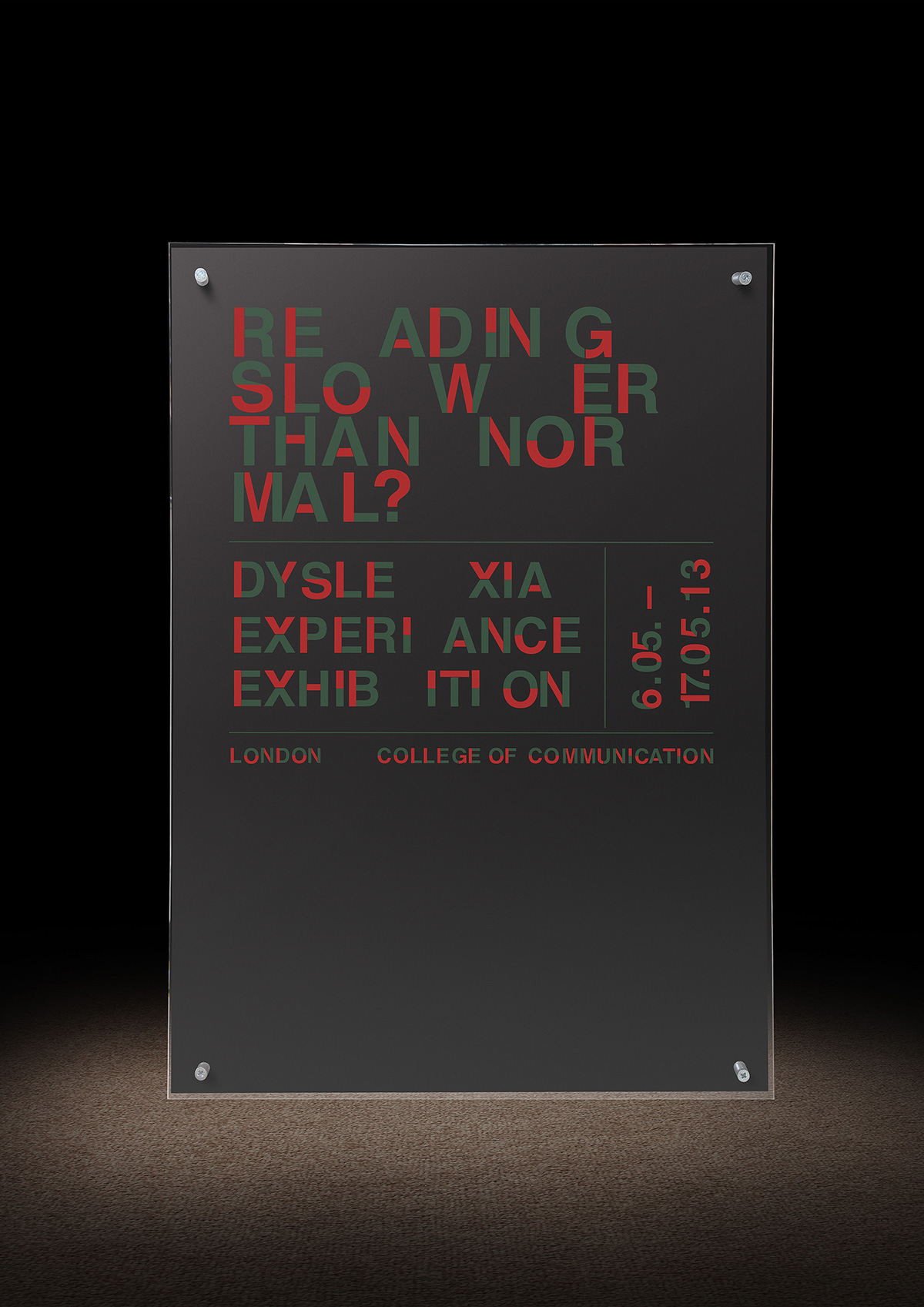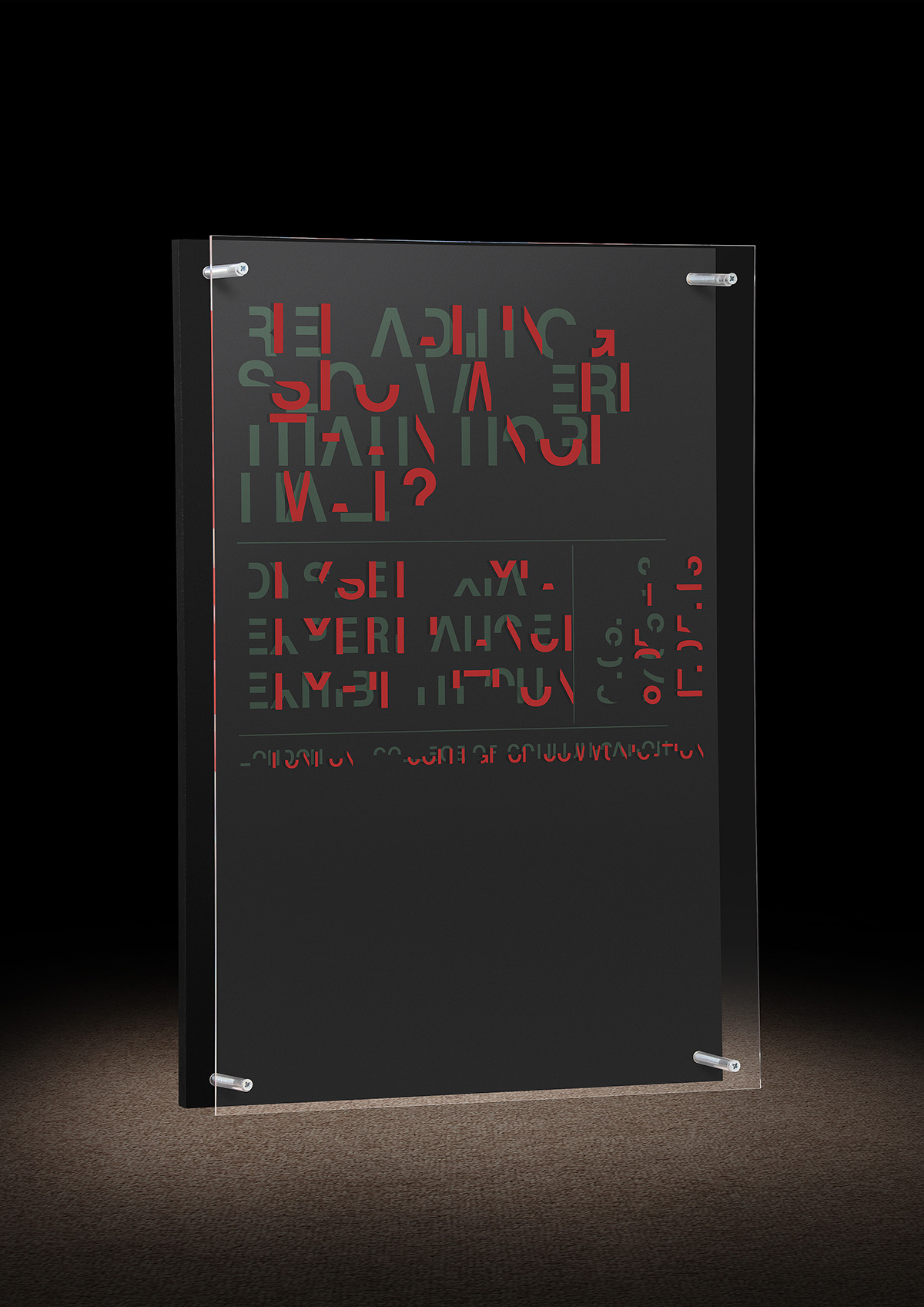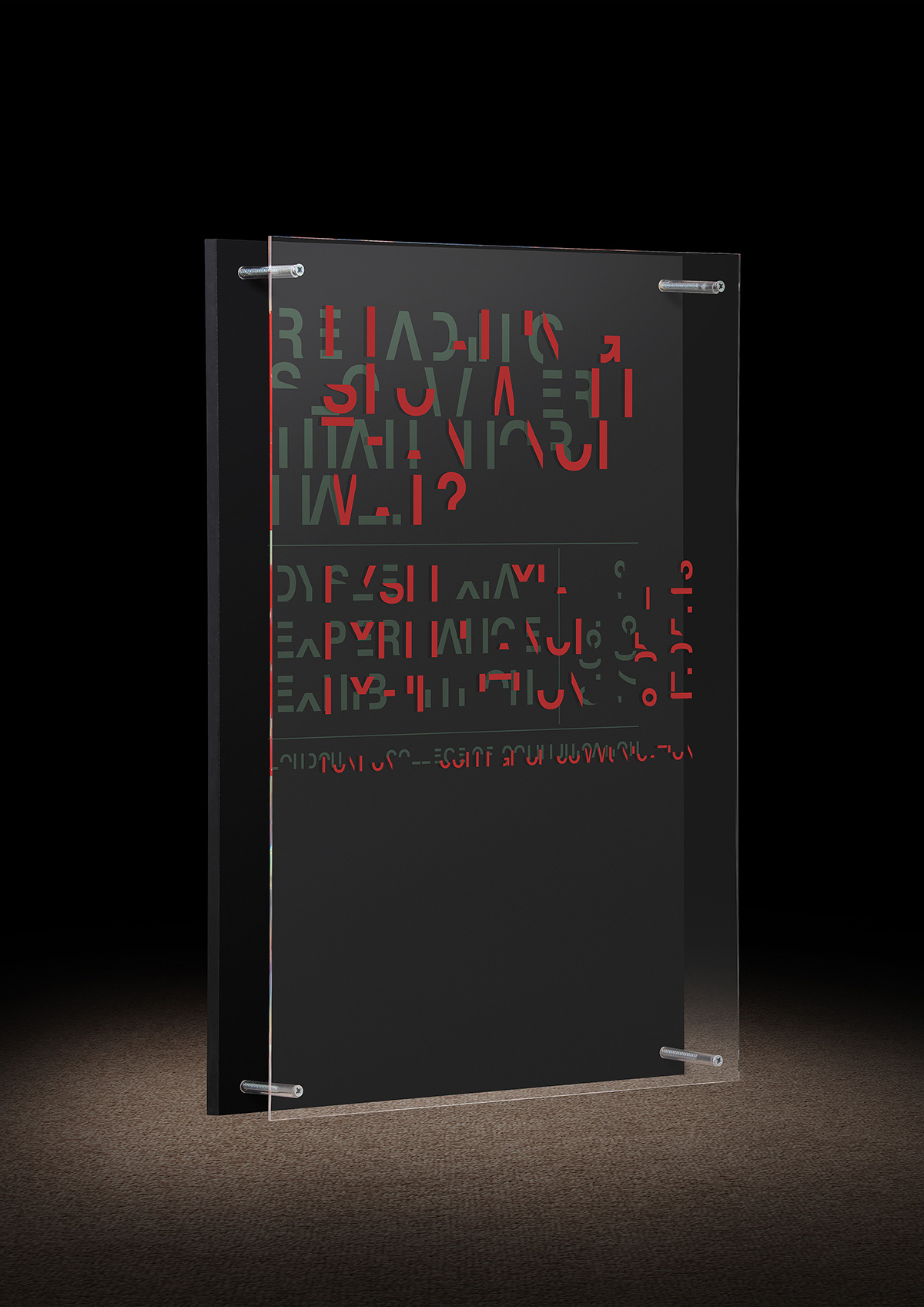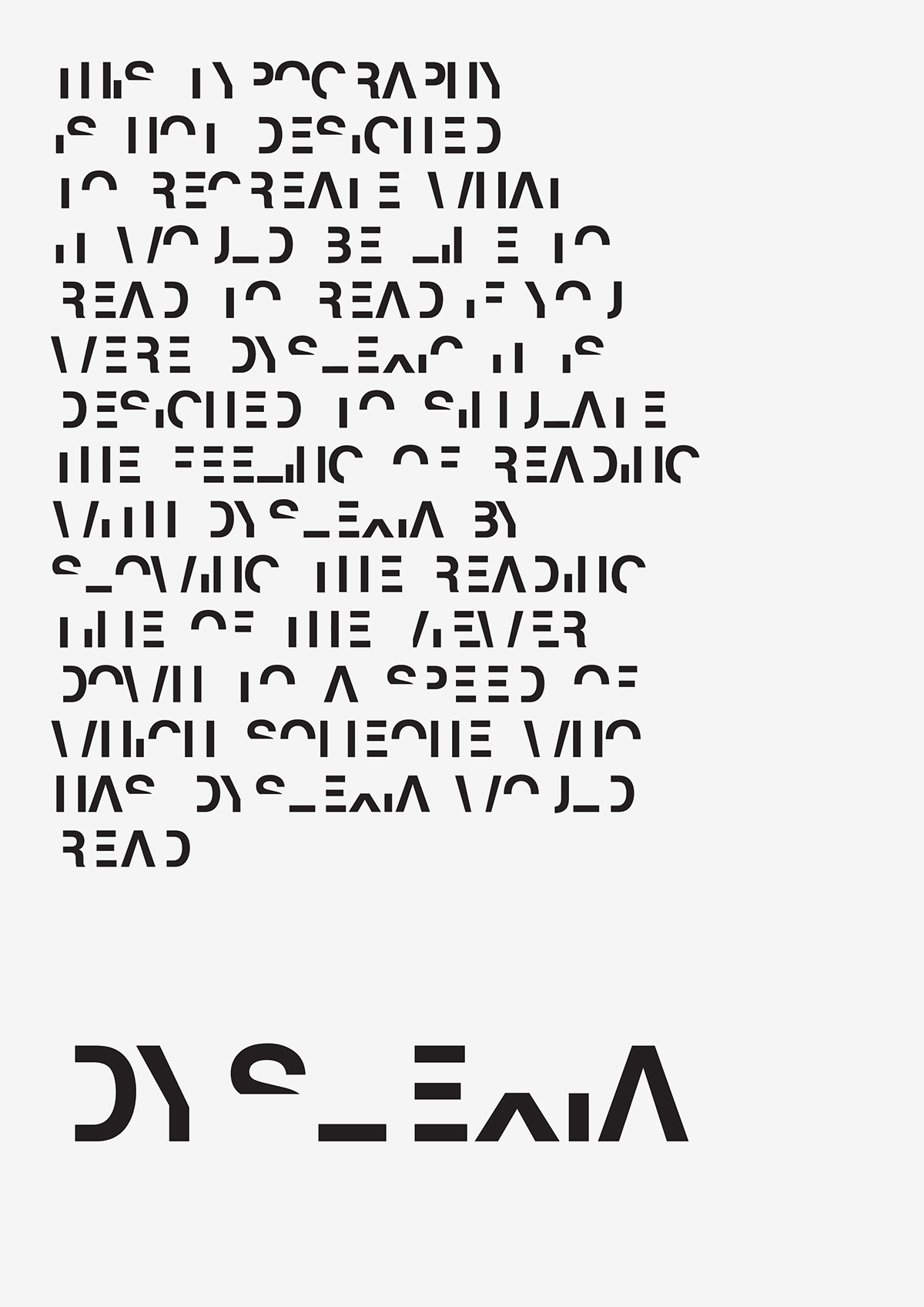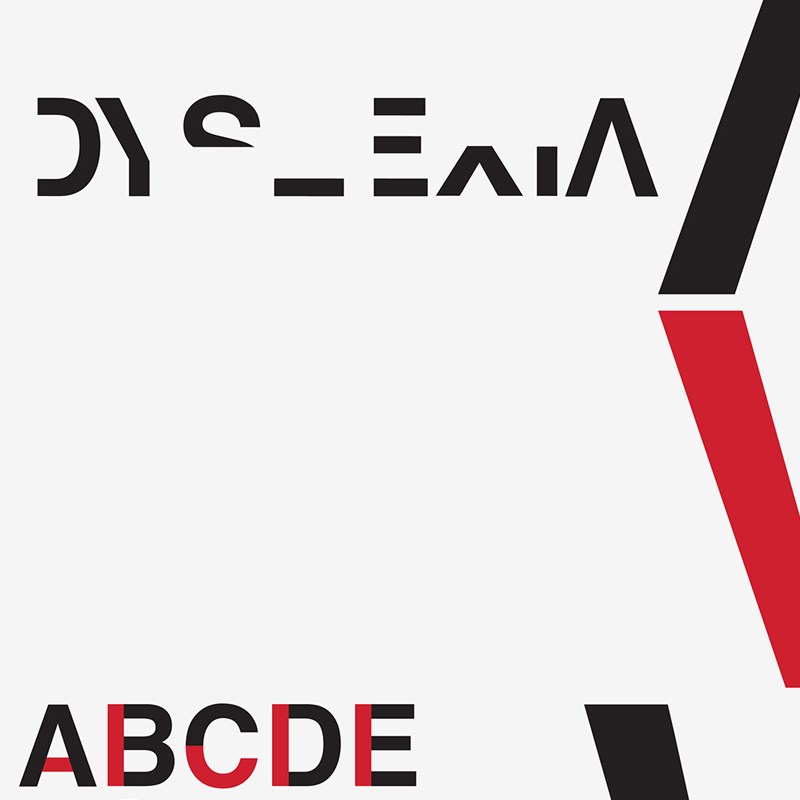
Daniel Britton’s font will make you feel what dyslexia is all about
It took Daniel Britton 22 years to finish reading a book. “People who’ve never been dyslexic don’t understand what it’s like.” he says to CNN. He was diagnosed as a partial-dyslexic at a very young age “But no one understood it” he told Daily Mail. “I remember when I was eight-years-old, all I got was try harder, read harder, you’re lazy, you’re stupid, you’re thick”. Books were hard to finish, graphic design though was his craft. Therefore he used it for a purpose, to inform and advocate more empathy on the most prevalent of language-based learning disabilities. Dyslexia affects 1 in 5 students yet it remains a widely misunderstood disorder.
Daniel Briton decided to act. Being a successful graphic designer, he found a brilliant way to convey those feelings of frustration be creating his own font, dubbed Dyslexia. “This typography is not designed to recreate what it would be like to read if you were dyslexic it is designed to simulate the feeling of reading with dyslexia by slowing the reading time of the viewer down to a speed of which someone who has dyslexia would read.”
Using Helvetica as a base, the Dyslexia font removes around 40 per of the typeface’s lines as it aims to make the average reader take their time when attempting to decipher the letters in the words and sentences. A font designed to slow down reading to the speed of someone with dyslexia reading normal font.
“I need the viewer to have to work to read something so simple as a poster”
“I wanted to create a piece on Dyslexia as Dyslexia is for the most part greatly misunderstood and extremely miss communicated, even the government agencies that aim to create awareness at best create confusion and being a Dyslexic student I wanted to create a piece of artwork that would allow a understanding and a sense of empathy between non Dyslexics to Dyslexics” writes Britton.
“I believe that once that Dyslexia is understood then as a nation we can create better learning conditions for Dyslexic students and let them excel in the same way that every other person can. Just think, there are around 8 Billion people living in the world right now with around 10% of the population being Dyslexic, so that gives you around 800,000,000 Dyslexic people on the planet, if we can increase our understanding and give the correct help to these people just think how many more Richard Bransons, Elon Musks or Boyan Slats we can produce.
For most people the letters and numbers do not jump around on the page and the colors remain the same, it is simply a break down in communication between they eye and the brain, for most people you can see the information, you can see perfectly each and every letter form but there is something in your mind that is stopping or slowing the process of information and for most this is Dyslexia”.
Britton used typography to make non-Dyslexic people understand what it is like to read with the condition and to recreate the frustration and embarrassment of reading everyday text and then in turn to create a better understanding of the condition.
“In 2D the type is split into 2 and only one section of the type if revealed, just enough for you to eventually piece it together. In its 3D form both sections of the type are there, one placed directly on top of the other which is perfectly legible from front on, but the moment you move to either side or you view the poster from above or below the type breaks to which you have to physically move yourself to read the text, it is exactly this that I wanted to get across, I need the viewer to have to work to read something so simple as a poster and it is this feeling of work, aggravation, effort, stress, embarrassment that recreates the feeling of reading with the condition” he writes.
This is a story about empathy, this is a true story about feeling, this is typography bridging the gaps between humans, making as more humane. Britton developed Dyslexia to convey the emotion behind it.